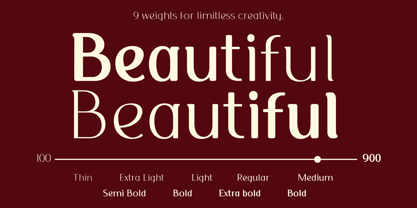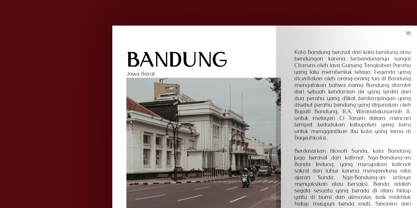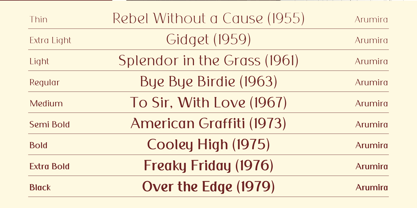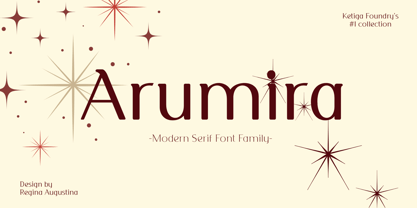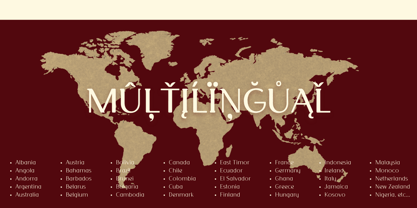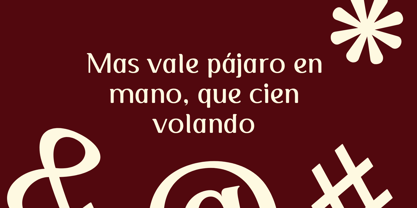
Arumira
by Ketiga Foundry
The Arumira Font Family was designed by Reginaa Augustina and published by Ketiga Foundry. Arumira contains 9 styles and family package options. More about this family
Arumira is a modern serif font family that brings timeless elegance to contemporary design. With 9 meticulously crafted weights, this typeface achieves a harmonious balance between softness and structure, making it perfect for editorial layouts, branding, packaging, and minimalist visuals. Each curve and serif is intentionally shaped to create a graceful rhythm that embodies both modernity and classic appeal. Whether used for striking headlines or subtle text, Arumira adapts beautifully across various styles and moods, enhancing the overall aesthetic of any project.
Designers: Reginaa Augustina
Foundry: Ketiga Foundry